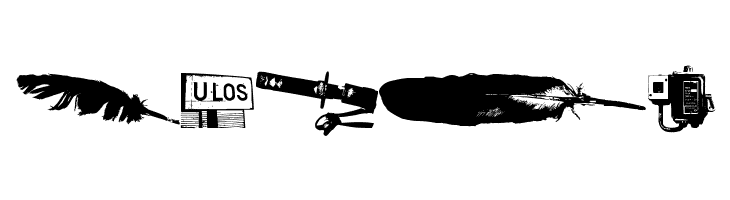
Kopio 639 Font
A bold, distressed font with a rugged, grunge texture.
Melkein Aito Kopio Font
An eclectic display font made from assembled object photographs.